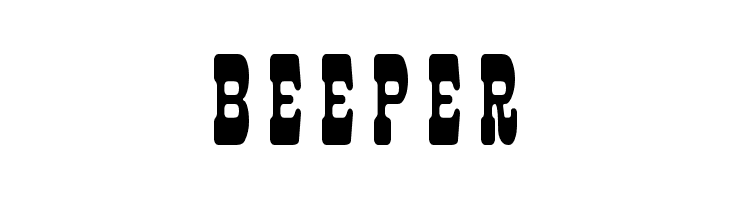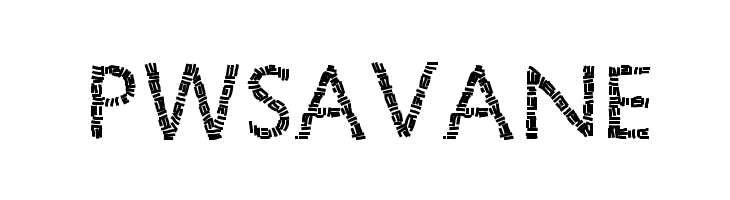
A distressed, grunge-style font with bold, textured characters.
A bold, geometric font with a modern and decorative style.
A grunge-inspired font with dripping, chaotic strokes for a rebellious look.
A bold, textured font with a mosaic-like design, perfect for creative projects.
A bold, distressed font with a grunge texture and rugged, urban style.
A playful, textured font resembling crayon drawings, ideal for creative projects.
A playful, bubble-like font with outlined characters and a whimsical style.
A bold, vintage-style font with thick, blocky characters and rounded edges.